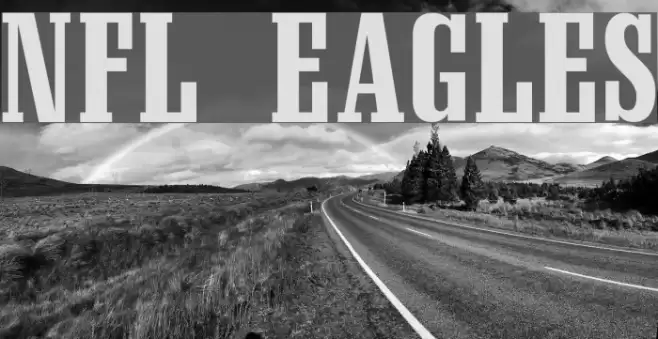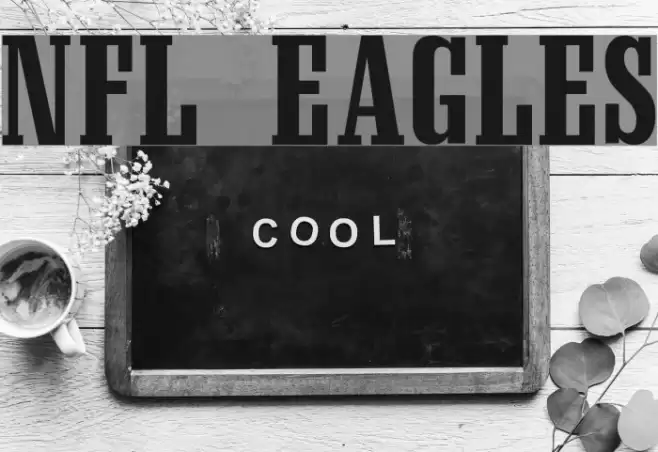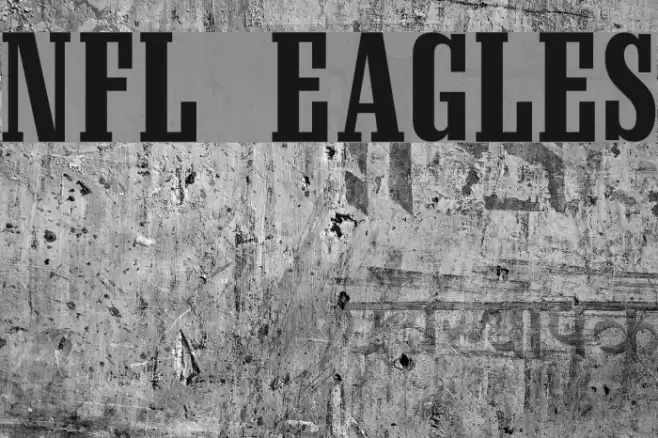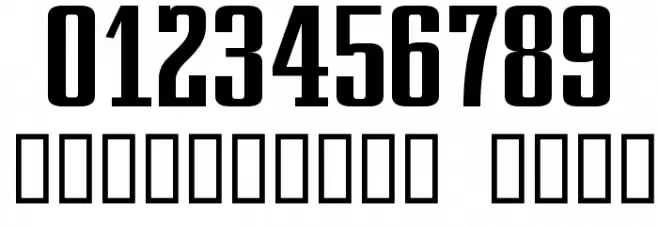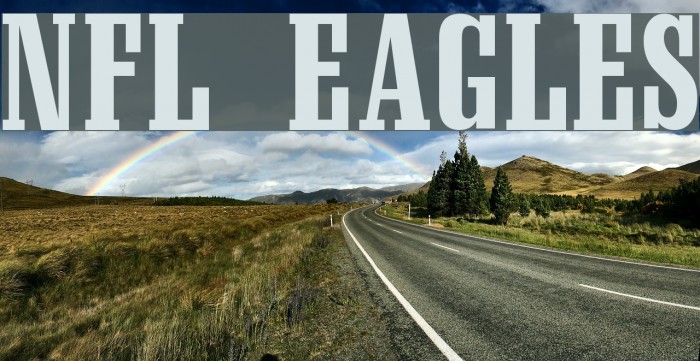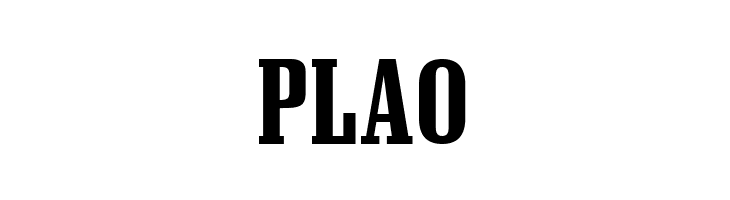
NFL Eagles Font
NFL Eagles Description
This font features a bold and commanding presence with its strong, thick strokes and high contrast between thick and thin lines. The serifs are pronounced, adding a touch of classic elegance to the overall design. The uppercase letters are particularly striking, with a slightly condensed width that enhances their impact. The numerals are equally bold, maintaining the same level of contrast and strength. The font's style is reminiscent of traditional sports or collegiate typefaces, making it ideal for projects that require a sense of authority and tradition.
A bold, high-contrast serif font with a classic, authoritative style from Uncategorized fonts.
- Proposed Projects: Ideal for sports branding, team logos, posters, and any project requiring a strong, traditional look.
- Overall Style: Classic
- Use Case: Logos, Headlines